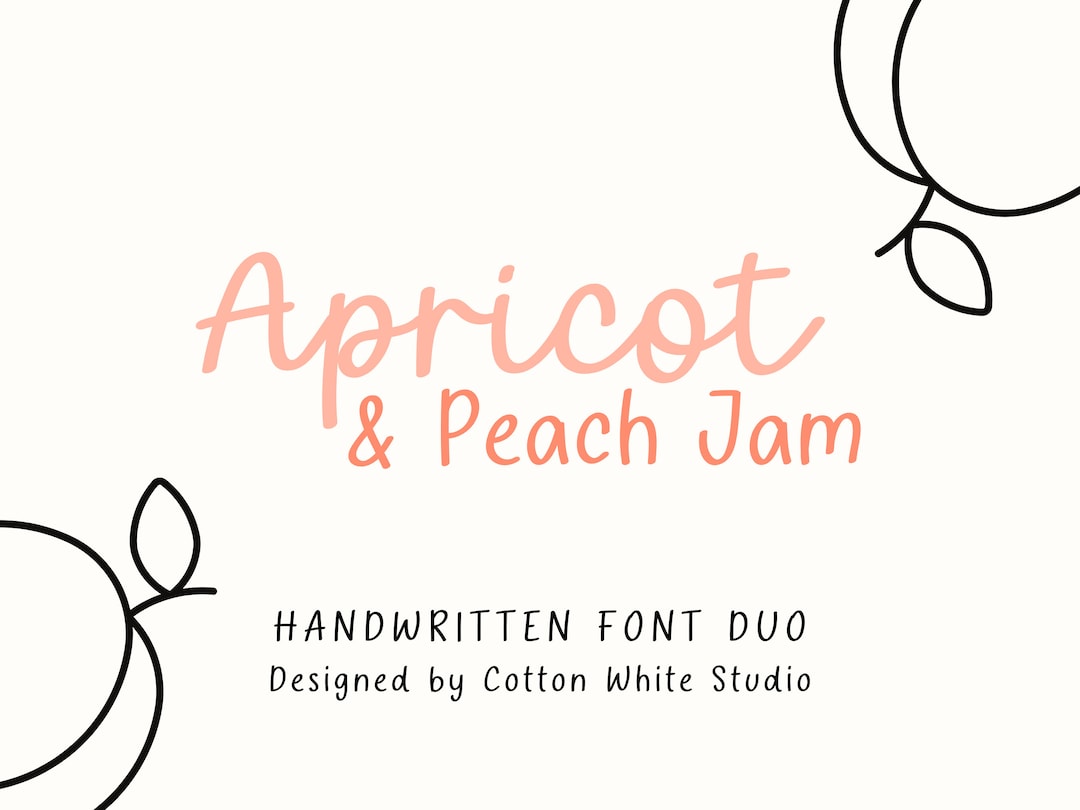
Apricots Canva Font Free Download . 19,132 downloads (32 yesterday) free for personal use. Apricots font is a handwritten font with a fun, modern look! To download the apricots canva font for free, simply visit the official canva website and navigate to the fonts section. Click to find the best 840 free fonts in the canva style. This font is perfect for modern projects, headings, blogs, logos, brandings,. Apricots is a handwritten font with a fun, modern look! Every font is free to download! This font is perfect for modern projects, headings, blogs, logos, brandings,. Trusted by millions + easy to use font files + full support.
Apricots is a handwritten font with a fun, modern look! To download the apricots canva font for free, simply visit the official canva website and navigate to the fonts section. Click to find the best 840 free fonts in the canva style. This font is perfect for modern projects, headings, blogs, logos, brandings,. Apricots font is a handwritten font with a fun, modern look! 19,132 downloads (32 yesterday) free for personal use. This font is perfect for modern projects, headings, blogs, logos, brandings,. Trusted by millions + easy to use font files + full support. Every font is free to download!